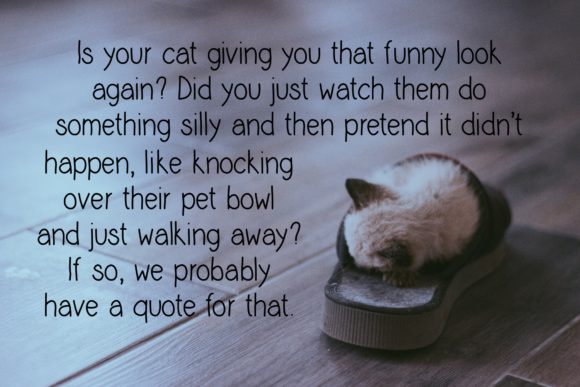
About Doobam Font
Doobam is a delightful and slender handwritten font, boasting a graceful simplicity that effortlessly complements a wide range of design projects. With its natural and distinctive style, this font becomes a versatile companion, perfectly suited to infuse creativity and charm into every creation. The possibilities are boundless, limited only by the expanses of your imagination.
At first glance, Doobam’s slender letterforms exude an air of elegance, making it an ideal choice for projects that require a touch of refinement. Its understated beauty allows it to harmonize with various design themes, from minimalist aesthetics to more intricate and ornate concepts. Whether you’re crafting wedding invitations, thank-you cards, quotes, greeting cards, logos, or business cards, Doobam lends a graceful handwritten touch to each design, leaving a lasting impression on recipients.
In the realm of weddings, Doobam can transform invitations into treasured keepsakes. The font’s delicate lines and simple curves add a touch of sophistication to wedding stationery, capturing the essence of love and romance. Whether the theme is classic and traditional or contemporary and modern, Doobam adapts effortlessly, reflecting the unique spirit of the couple and their special day.
For creative projects seeking a touch of whimsy and charm, Doobam steps up to the plate. Its simplicity provides a blank canvas for artists and designers to let their creativity run wild. From artistic posters to quirky illustrations, this font serves as a delightful backdrop, allowing your artistry to shine brightly.
The versatility of Doobam extends beyond physical prints, embracing the digital realm as well. In the realm of social media, this font adds a touch of elegance to quotes and captions, elevating your posts to captivating pieces that resonate with your audience. As an integral part of branding, Doobam contributes to a cohesive and polished identity, making it an excellent choice for logos, website headers, and social media graphics.
Despite its thin and subtle appearance, Doobam has a commanding presence, quietly capturing attention and drawing viewers into its enchanting embrace. Its legibility ensures that your message is conveyed with clarity and finesse, while the smooth lines and natural flow of the font lend an effortless charm to every word.
In conclusion, Doobam is a thin and simple handwritten font that exudes elegance and versatility. Its natural and unique style makes it an ideal choice for a wide pool of designs, from wedding invitations and greeting cards to artistic illustrations and digital branding. As you embark on your creative journey, let Doobam be your artistic companion, transforming your projects into captivating works of art that stand out in the hearts of all who encounter them. Embrace the boundless potential of Doobam and unleash your imagination, as you craft extraordinary designs that leave an indelible mark on the world.